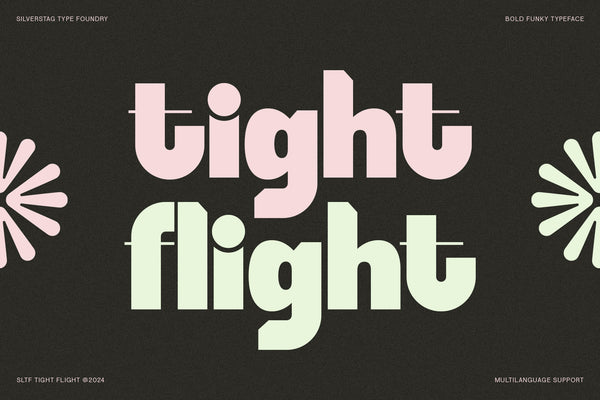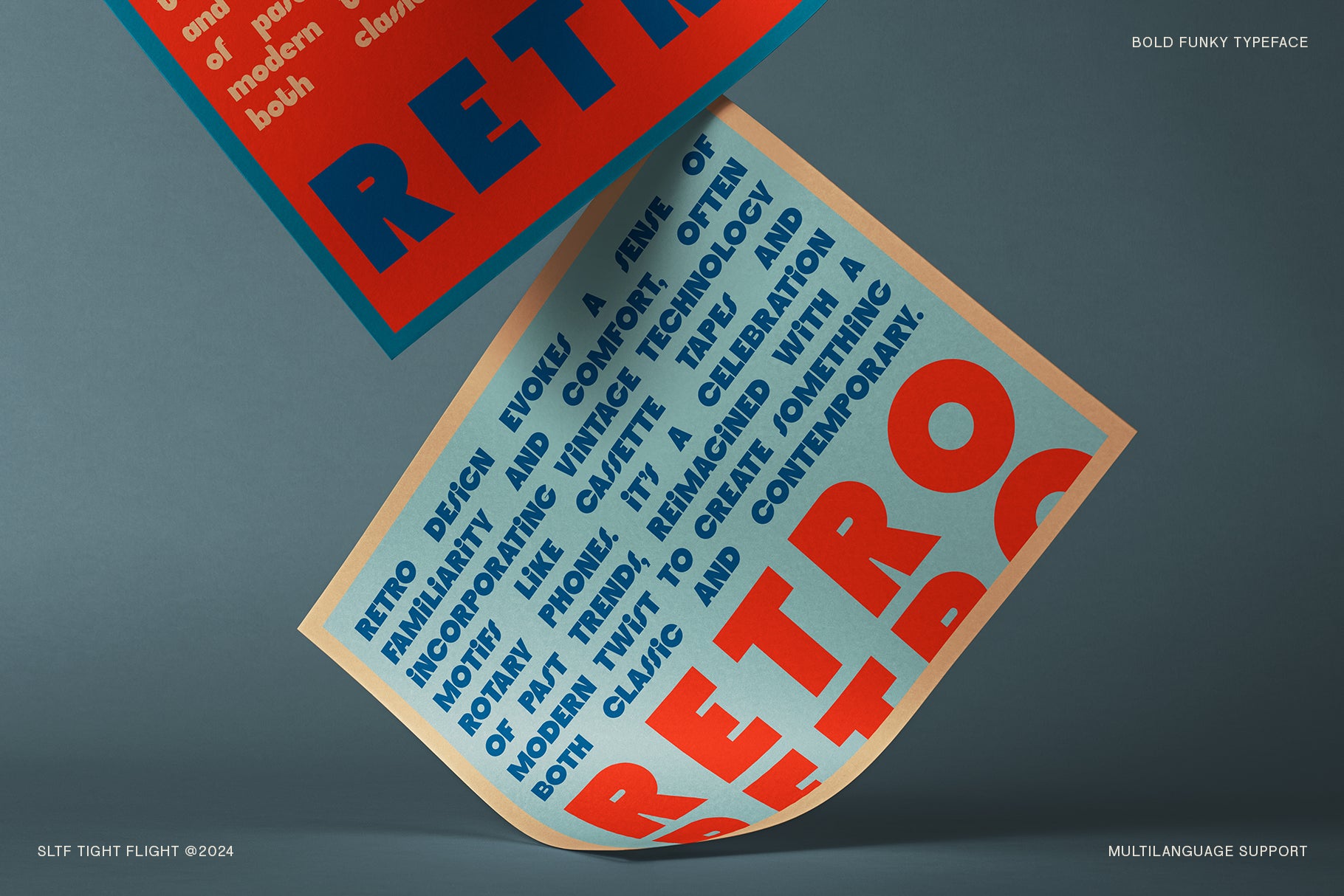
SLTF Tight Flight is a bold, modern sans serif typeface that blends geometric precision with funky, expressive energy. With its thick lines, sharp curves, and unexpected details, Tight Flight is built to elevate your design work and deliver serious visual impact.
Perfect for bold branding, standout packaging, and scroll-stopping social media graphics, this font adds a confident personality to everything it touches. Its sculpted letterforms exude contemporary cool—ideal for creatives looking to make a stylish statement.
With support for over 90 languages, SLTF Tight Flight is ready to go global, making it as practical as it is attention-grabbing.